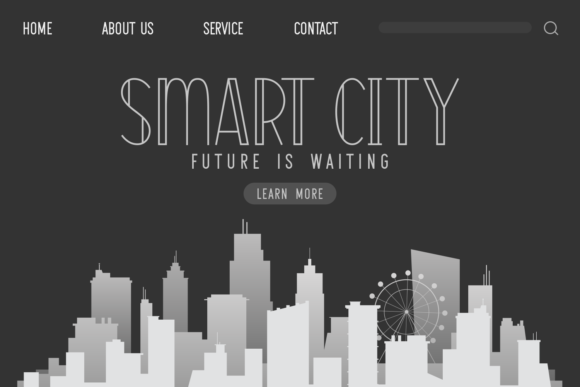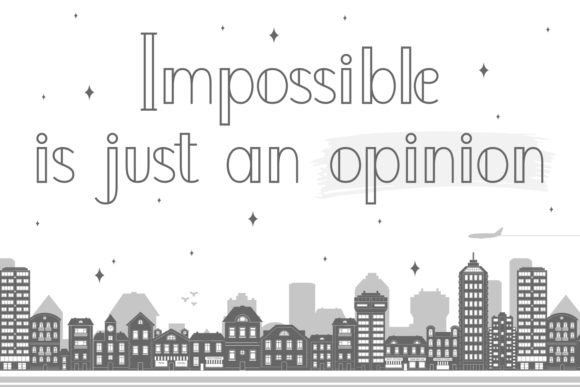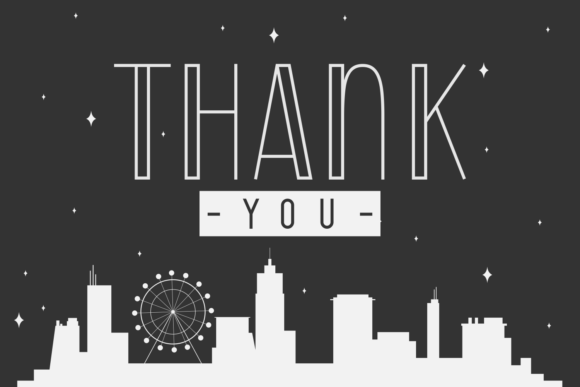
Introducing Cityline Font: The Cool and Trendy Outlined Display Font
Are you a designer, crafter, or digital artist looking for a font that can elevate your creative projects? Look no further than Cityline Font, a cool and trendy outlined display font that’s perfect for a variety of applications. In this article, we’ll explore the features and benefits of Cityline Font, and show you how it can take your designs to the next level.
What is Cityline Font?
Cityline Font is a modern, outlined display font that’s designed to make a statement. Its sleek and trendy lines make it perfect for a wide range of creative projects, from digital designs and presentations to crafting and greeting card making. The font’s outlined style gives it a unique and eye-catching look that’s sure to grab attention.
Key Features of Cityline Font
- Outlined style: Cityline Font features a bold, outlined style that’s perfect for creating eye-catching designs.
- Trendy and modern: The font’s sleek lines and modern aesthetic make it perfect for designers and crafters who want to create trendy and stylish designs.
- Versatile: Cityline Font can be used for a wide range of creative projects, from digital designs and presentations to crafting and greeting card making.
- Easy to read: Despite its bold and outlined style, Cityline Font is surprisingly easy to read, making it perfect for designs that require a clear and concise message.
Uses for Cityline Font
Cityline Font is a versatile font that can be used for a wide range of creative projects. Here are some ideas to get you started:
- Digital designs: Use Cityline Font to create eye-catching digital designs, such as social media graphics, blog headers, and email newsletters.
- Presentations: Add a touch of style and sophistication to your presentations with Cityline Font.
- Crafting: Use Cityline Font to create custom signs, banners, and other craft projects.
- Greeting cards: Add a personal touch to your greeting cards with Cityline Font.
Benefits of Using Cityline Font
So why choose Cityline Font for your creative projects? Here are just a few benefits of using this versatile font:
- Instant recognition: Cityline Font’s bold and outlined style makes it instantly recognizable, and can help your designs stand out from the crowd.
- Customizable: Cityline Font can be customized to fit your specific design needs, making it perfect for a wide range of creative projects.
Tips for Using Cityline Font
Here are a few tips for getting the most out of Cityline Font:
- Use it sparingly: Cityline Font’s bold and outlined style can be overwhelming if overused. Use it sparingly to create emphasis and add visual interest to your designs.
- Pair it with other fonts: Cityline Font pairs well with a variety of other fonts. Experiment with different pairings to find the perfect combination for your design.
- Experiment with colors: Cityline Font looks great in a variety of colors. Experiment with different colors and combinations to find the perfect look for your design.
Cityline Font is a cool and trendy outlined display font that’s perfect for designers, crafters, and digital artists. Its sleek and modern aesthetic makes it perfect for a wide range of creative projects, from digital designs and presentations to crafting and greeting card making. With its ease of use, versatility, and instant recognition, Cityline Font is a great addition to any design toolkit.